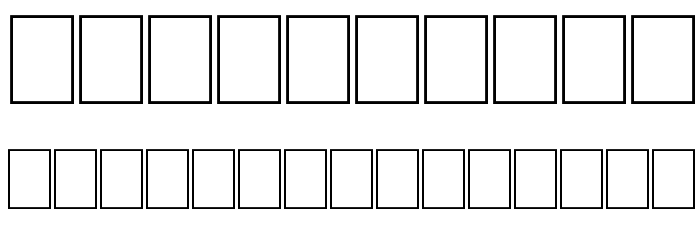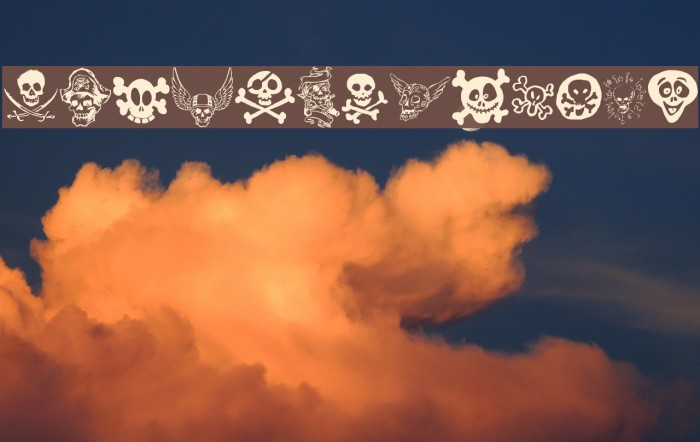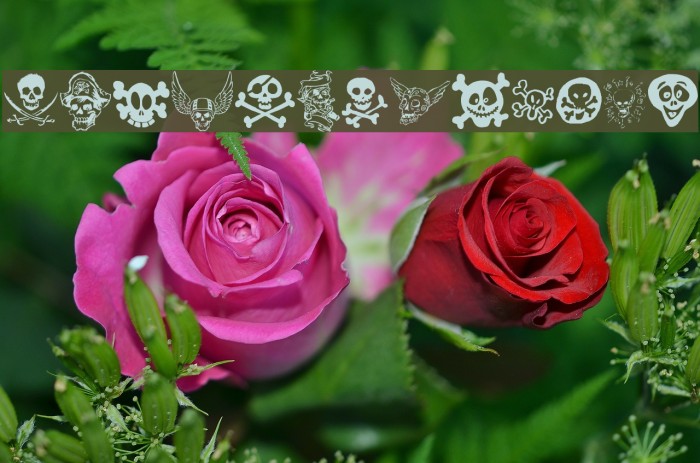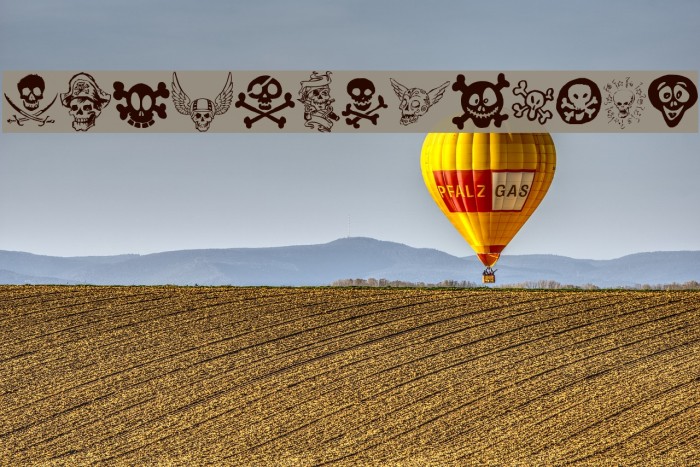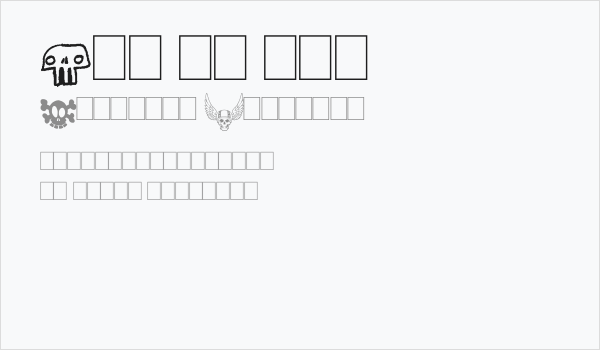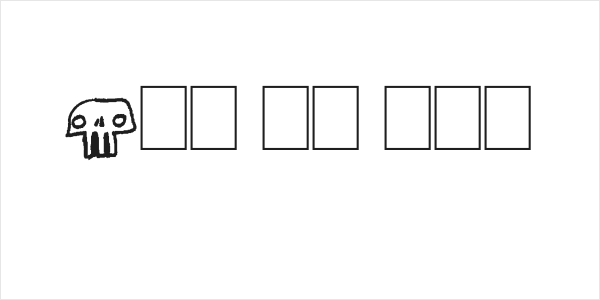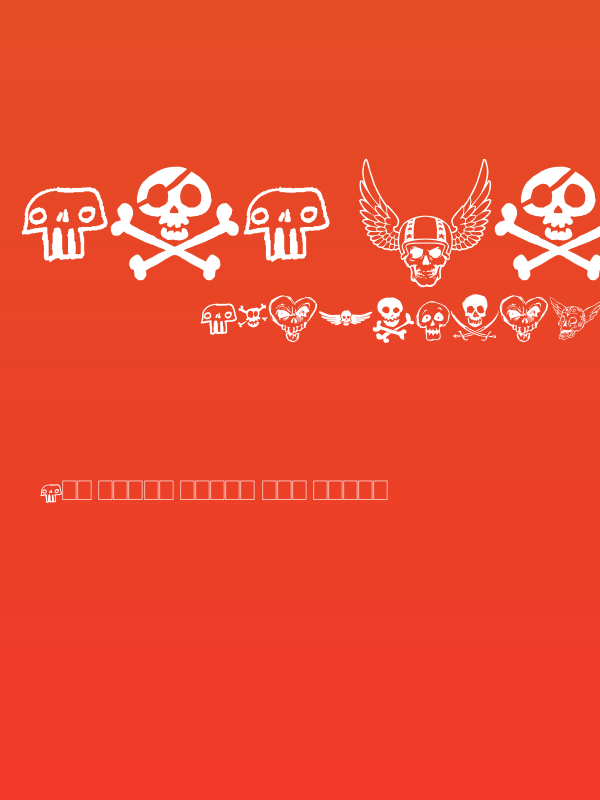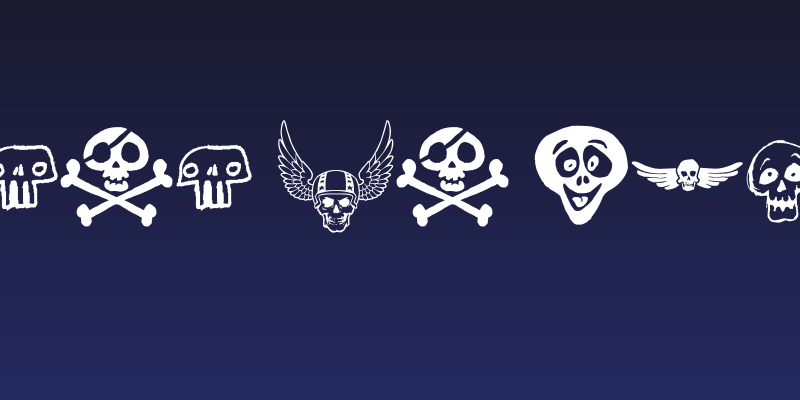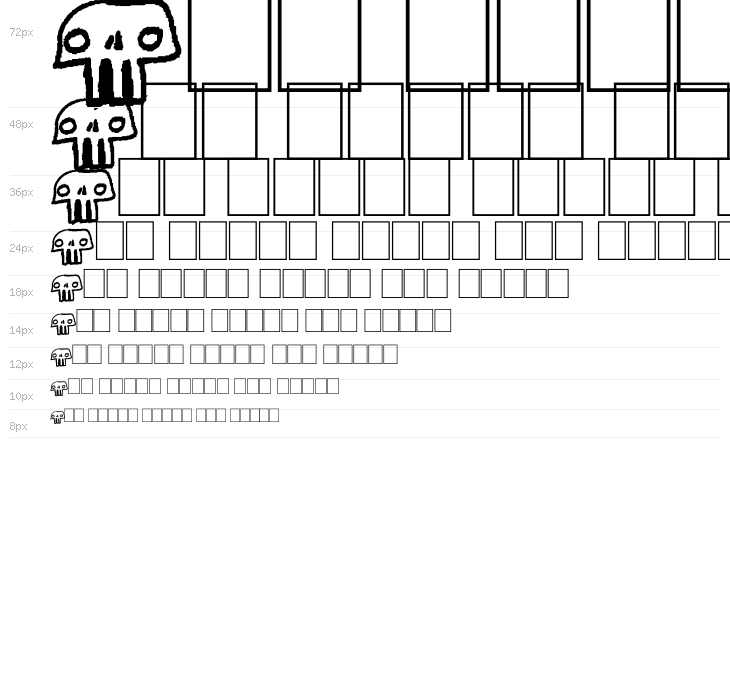
Tet de mor Font
Tet de mor Description
A decorative display font featuring a variety of hand-drawn skull and crossbones illustrations, each character represented by a unique skull-themed graphic. The style is playful and cartoonish, with bold outlines and varying levels of detail, giving a whimsical and edgy appearance.
| Overall Style | Decorative, Playful, Edgy |
| Use Case | Logos, Posters, Headlines, Themed Graphics |
| Proposed Projects | Halloween invitations, pirate-themed party materials, children's event posters, edgy branding, stickers, and novelty merchandise. |